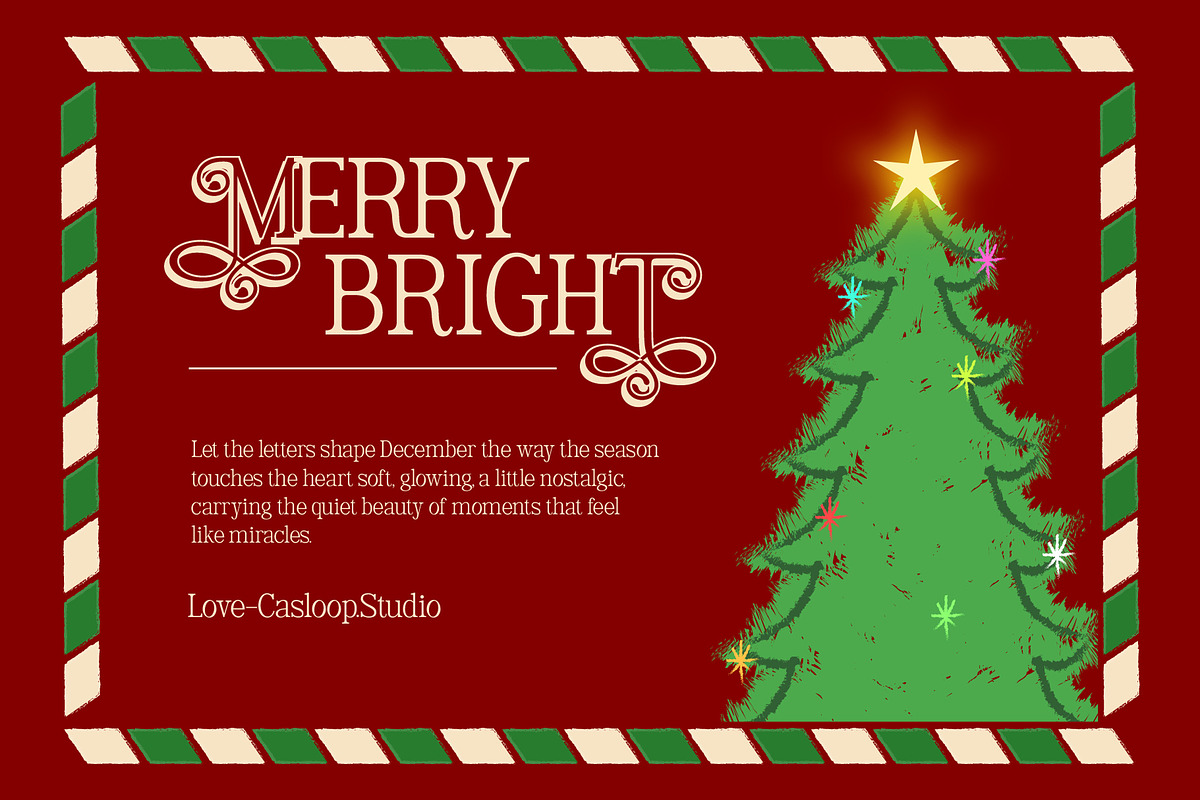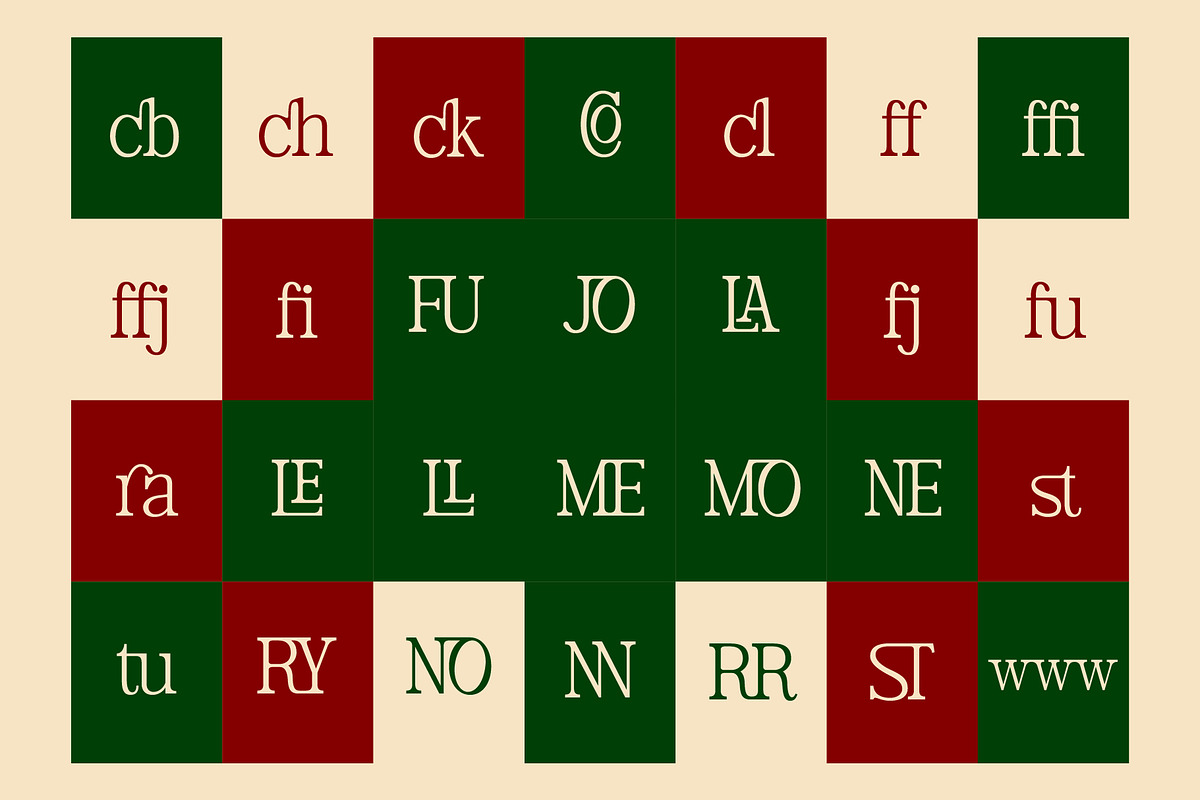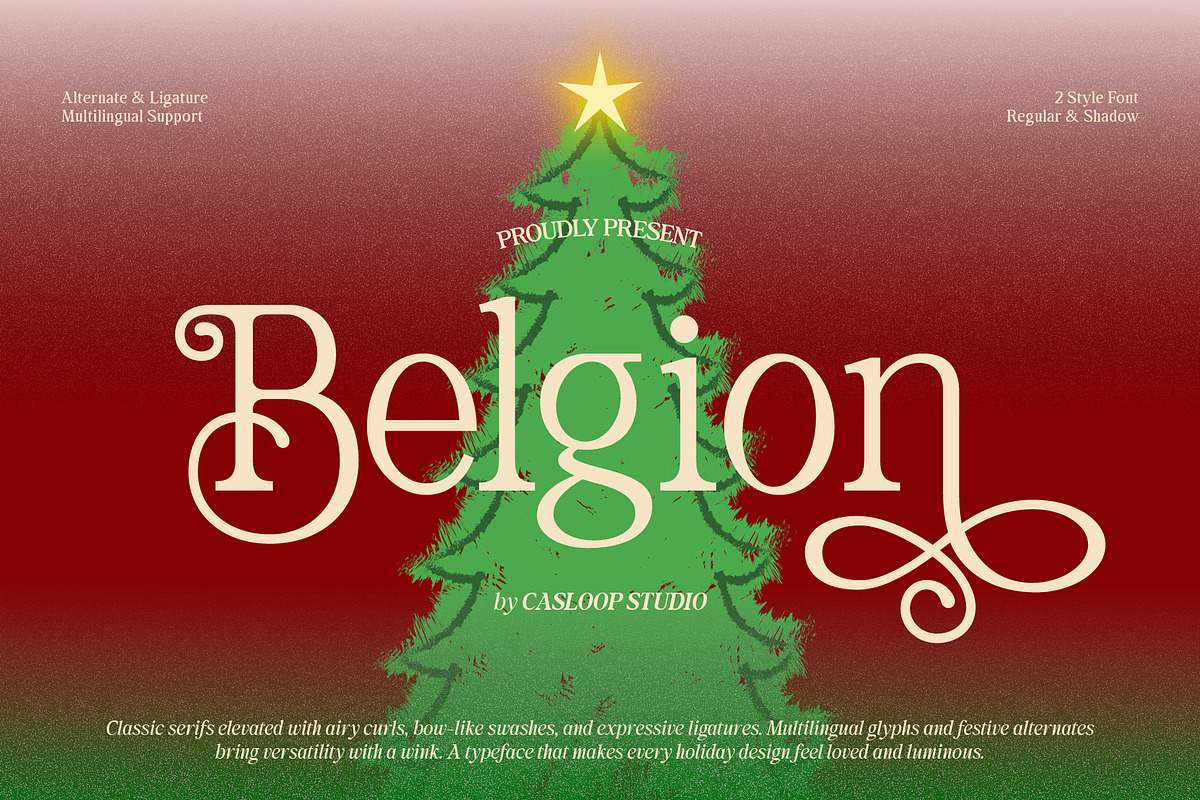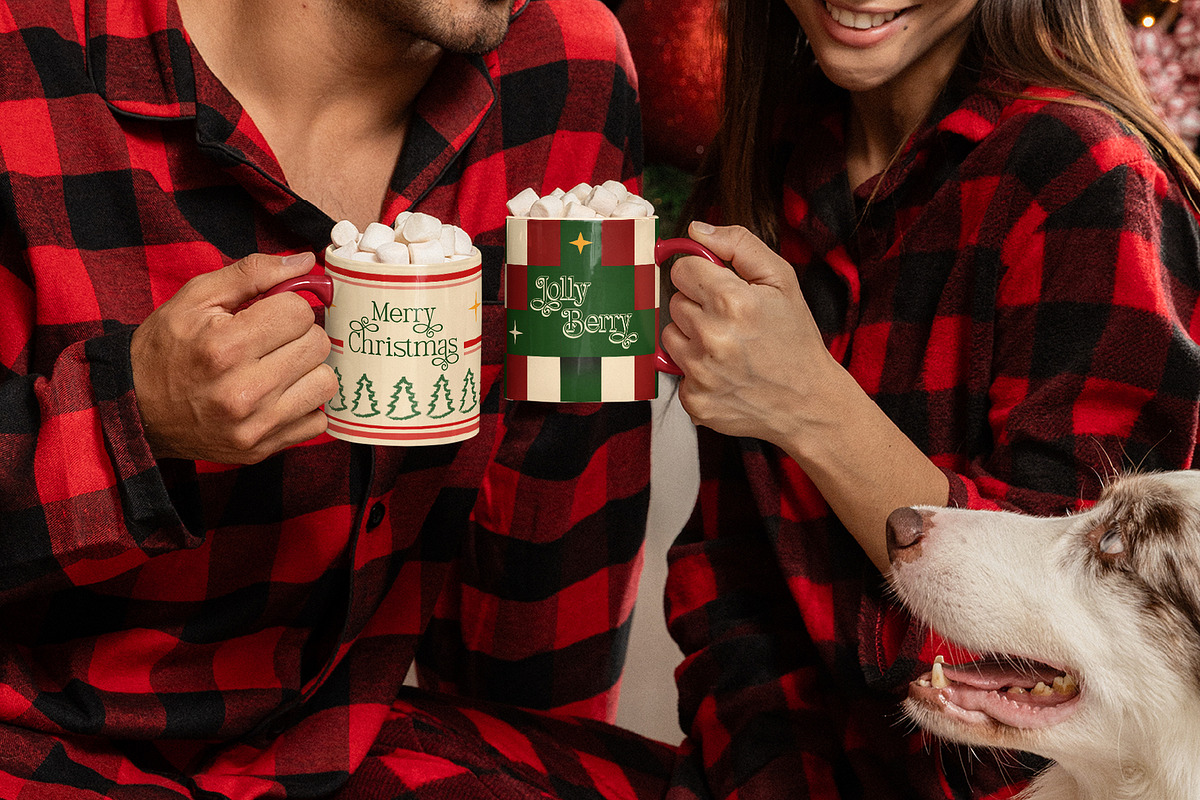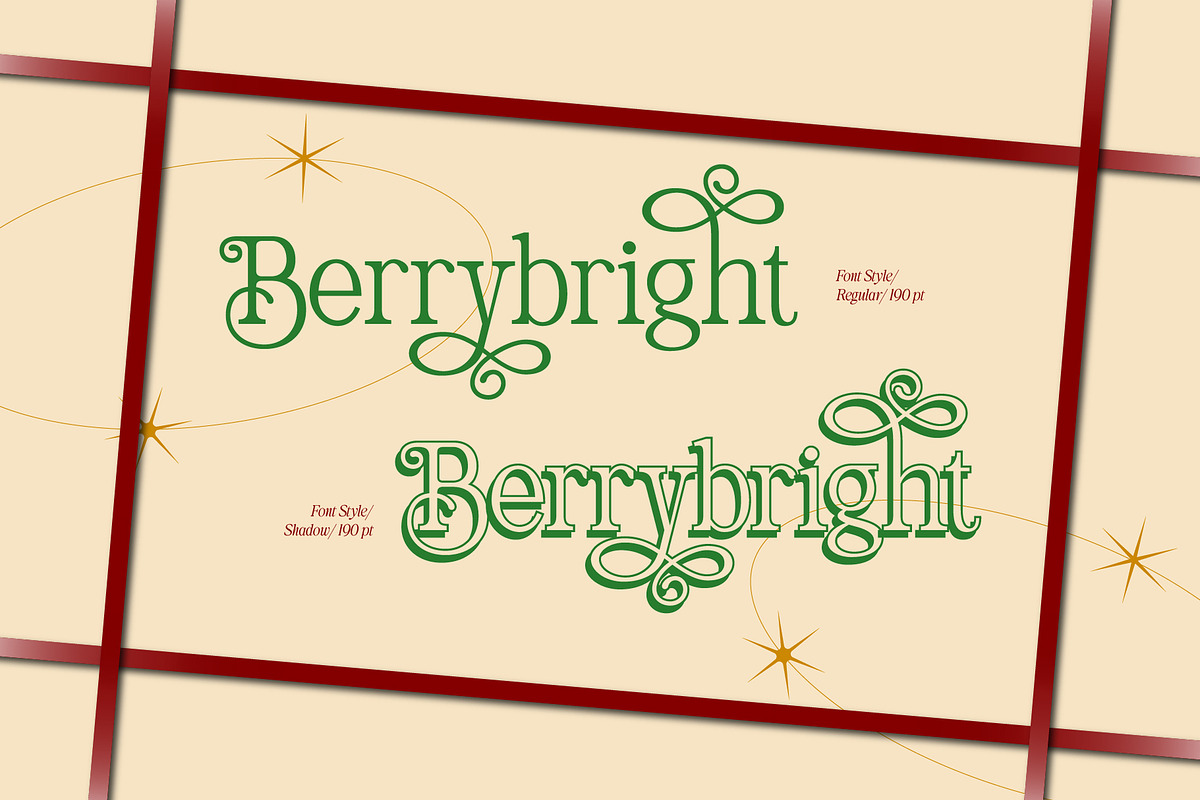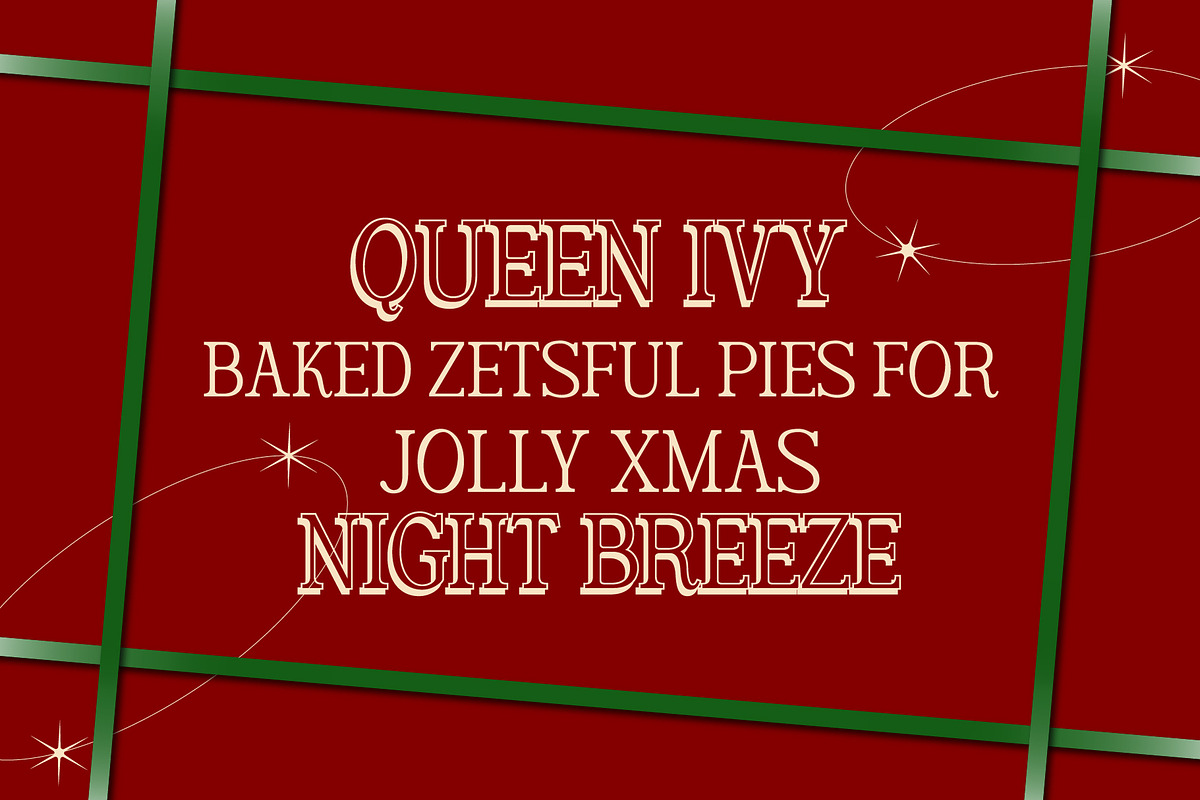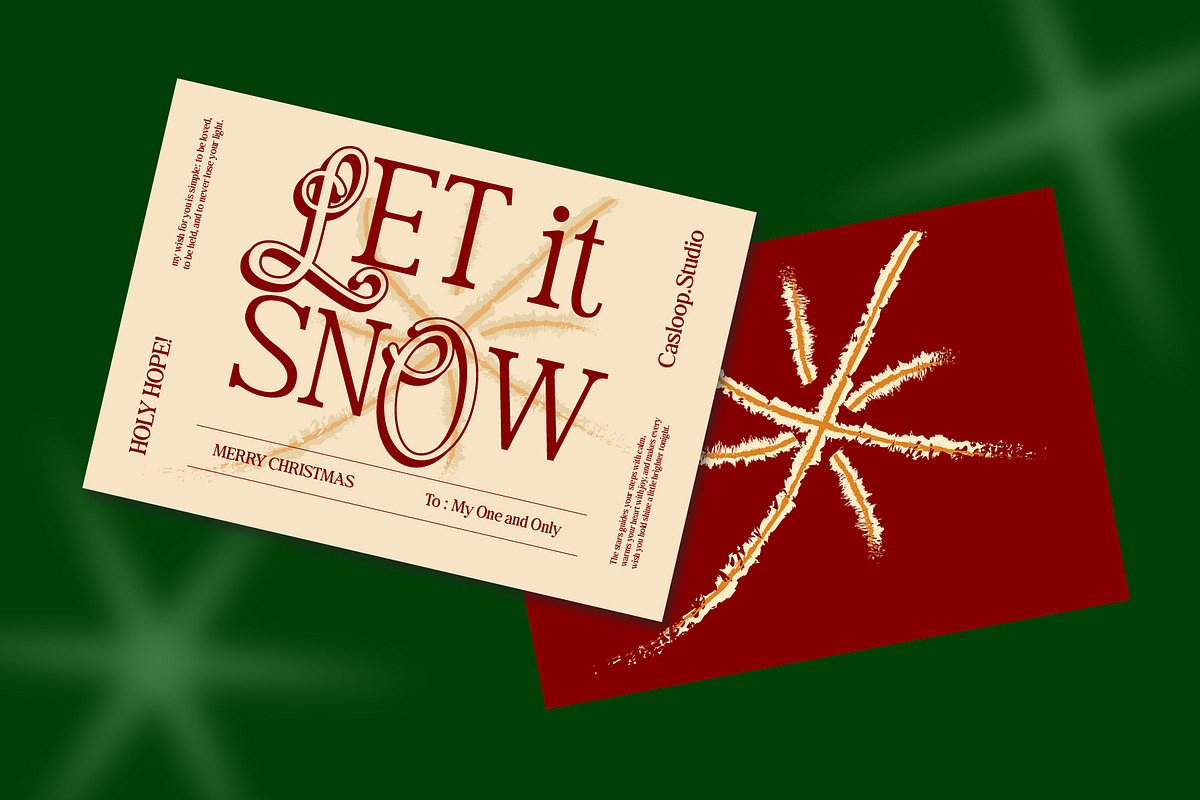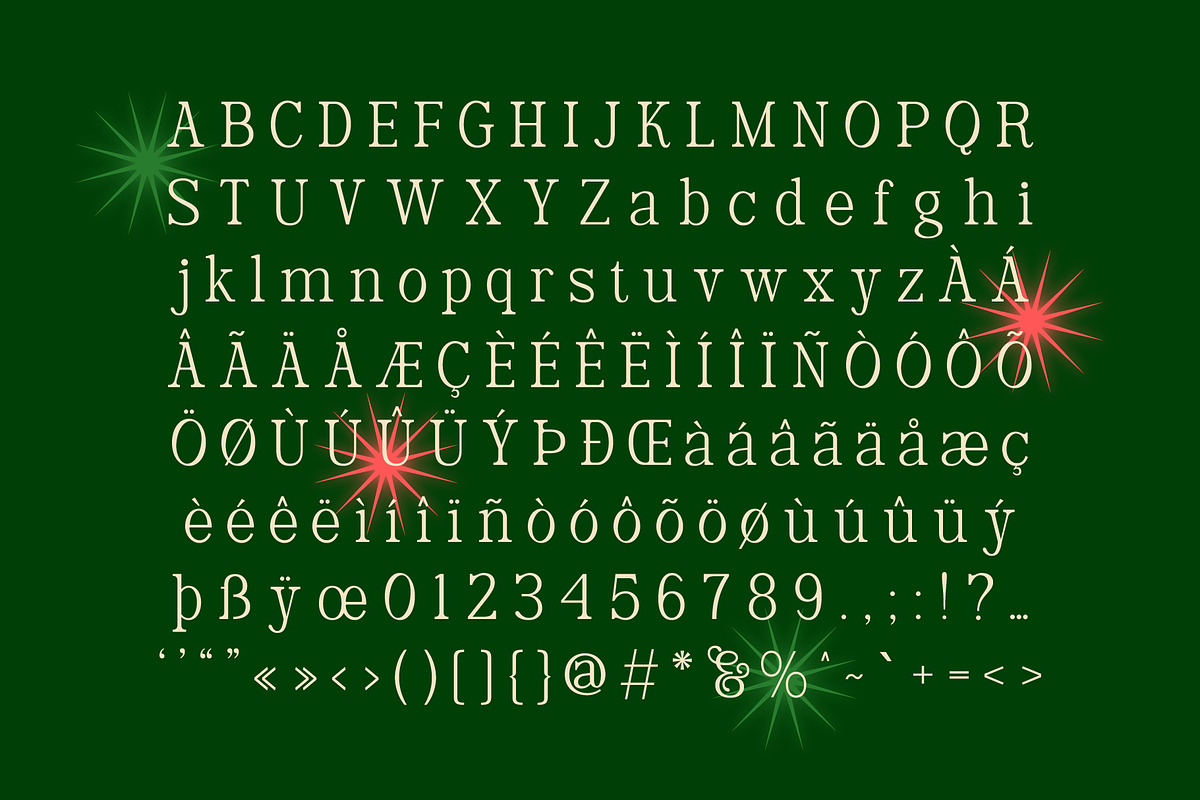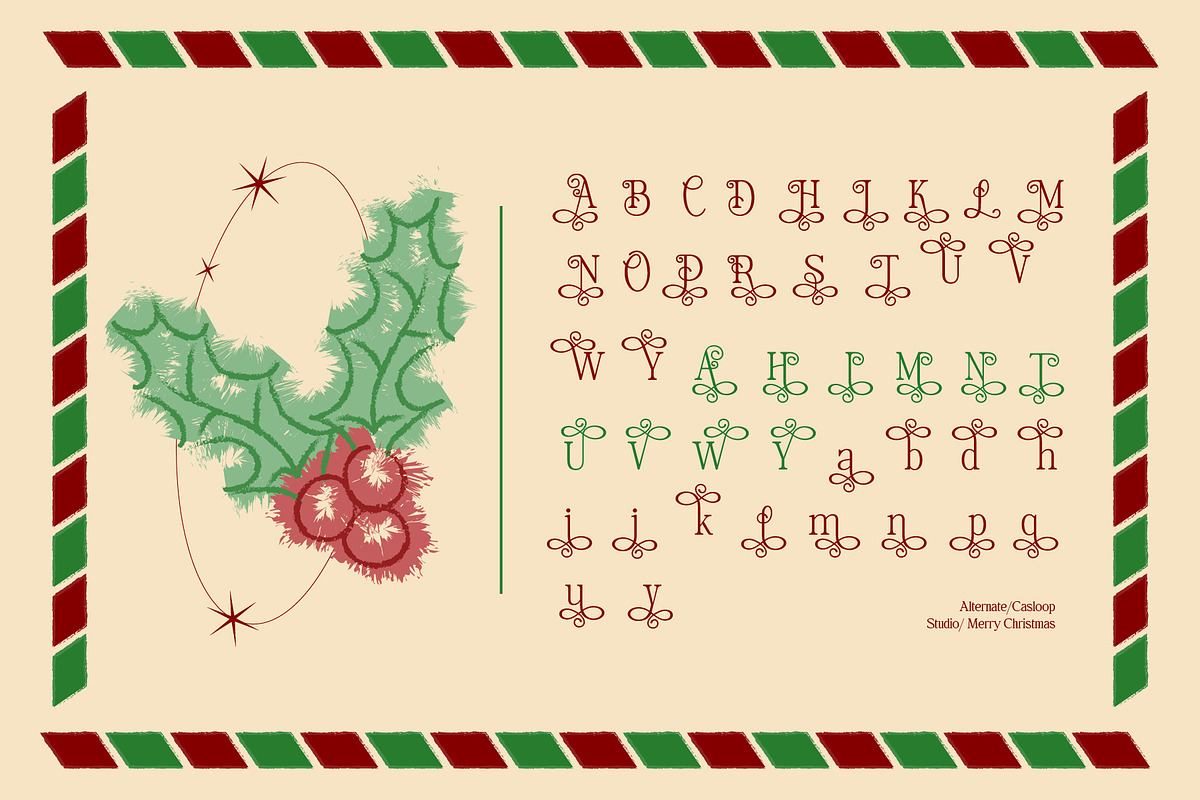
Belgion - Modern Elegant Font
BELGION is a Christmas elegant display typeface crafted to bring classic holiday warmth into beautifully shaped letters. With flowing swashes, elongated tails, and a ribbon-like movement across its forms, each character feels ornamental, festive, and gracefully refined — like a winter story written with vintage charm.
In its Regular style, BELGION delivers a clean, modern elegance perfect for holiday headlines and refined seasonal branding. The Shadow style deepens its presence, adding a nostalgic, dimensional look reminiscent of traditional winter market signage, classic Christmas storefronts, and handcrafted holiday posters. The subtle volume gives every word a glowing, decorative depth.
Its signature letters — R, Y, M, H, B, S — feature long, expressive swashes that twist like gift ribbons. This is the heart of BELGION’s identity: ornamental but balanced, joyful yet sophisticated, festive without losing its timeless grace.
Personality
“Elegant” – refined curves for premium Christmas aesthetics “Joyful” – ribbon-like accents full of festive flair “Classic” – vintage winter market charm embedded in each stroke Feels like: holiday cards, Christmas storefront labels, winter festival posters, classic gift packaging
Best For:
- Festive display headlines & Christmas promotional titles
- Seasonal branding, posters, and holiday campaigns
- Premium gift tags, packaging, and greeting cards
- Classic winter signage & editorial holiday layouts
- Social media visuals seeking elegant, joyful Christmas energy